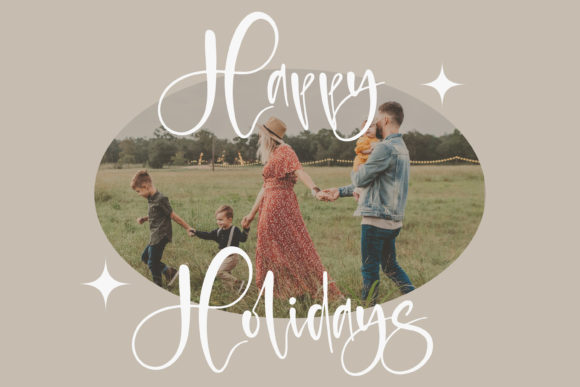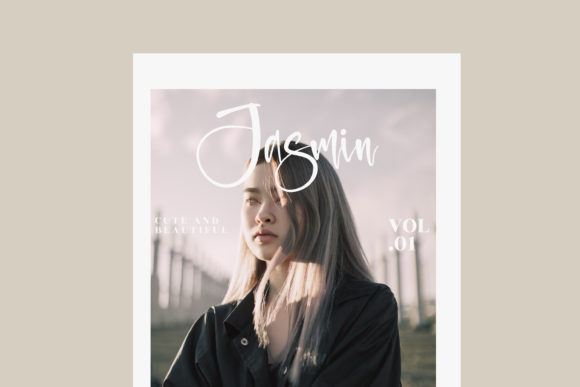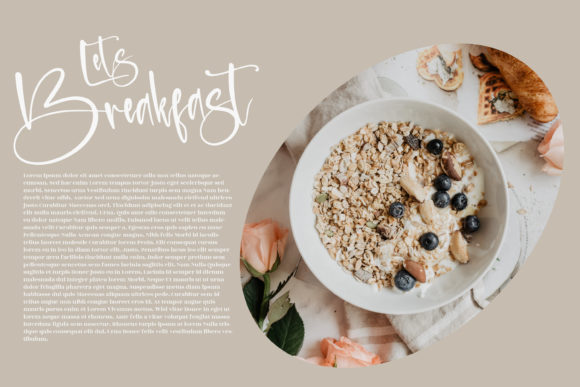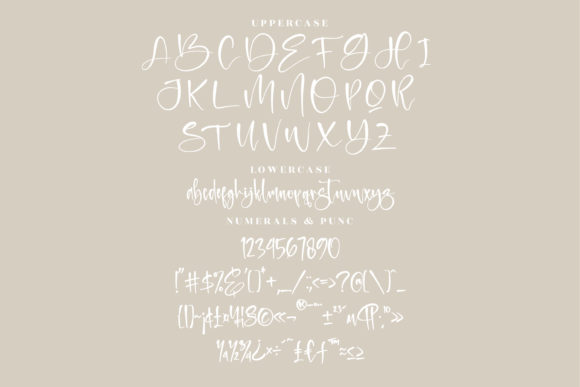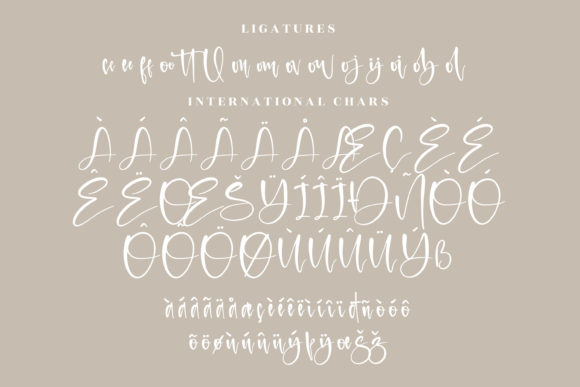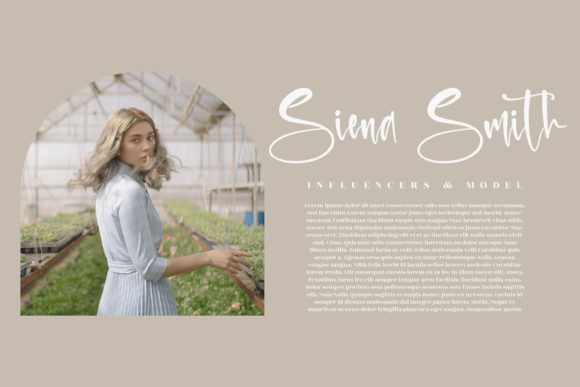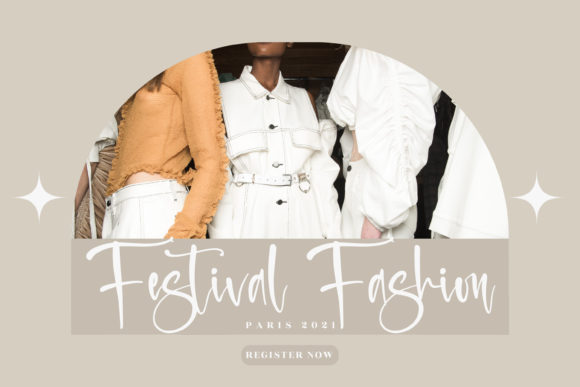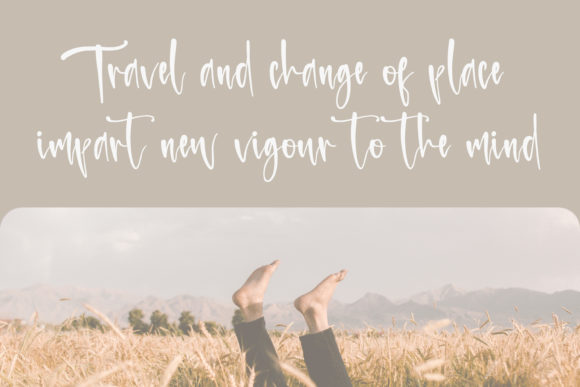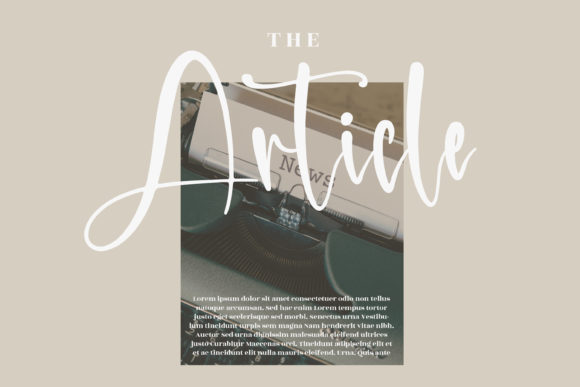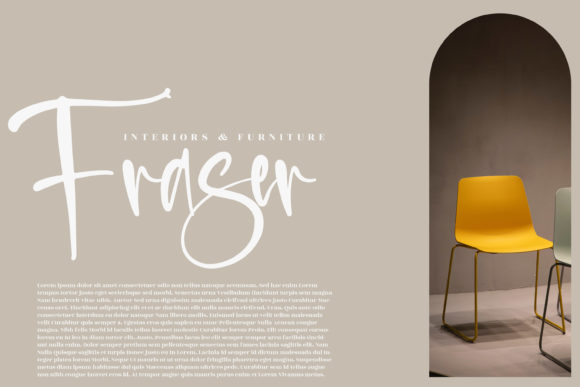
Destination Font
About Destination Font
Destination is a unique handwritten font. Its flexibility and neat style will brighten up each of your designs. Have fun with this cool font and explore its endless variations.